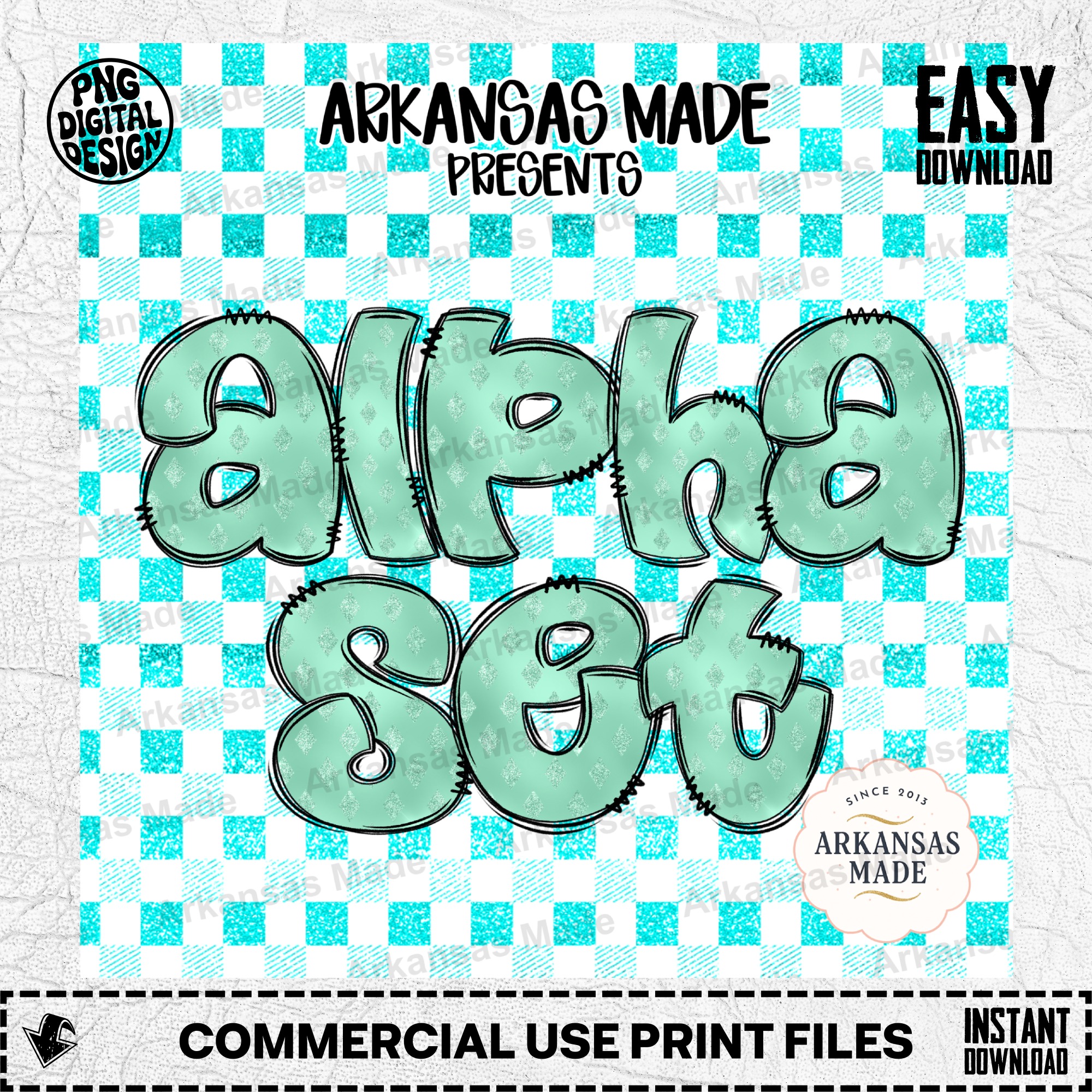
Elevate your creations with our charming Mint Green Glitter Alpha Set PNG! Perfect for sublimation, crafts, and personalized projects, featuring a faux silver sparkle effect. This whimsical digital alphabet features playful bubble letters with a unique hand-drawn outline and a lovely mint green ombre. It’s ideal for crafters, small business owners, and DIY enthusiasts looking to add a touch of sparkle and personality to tumblers, t-shirts, invitations, and more. A fantastic resource for creative gift ideas or personalizing items for friends and family.